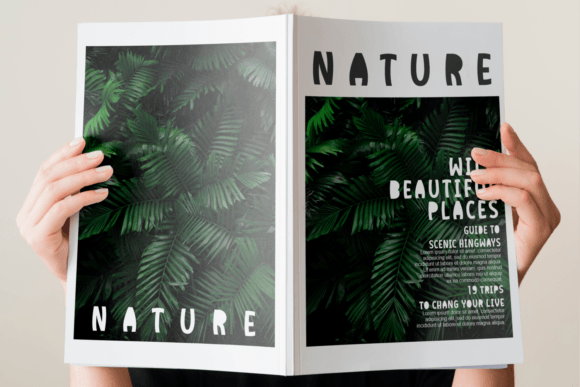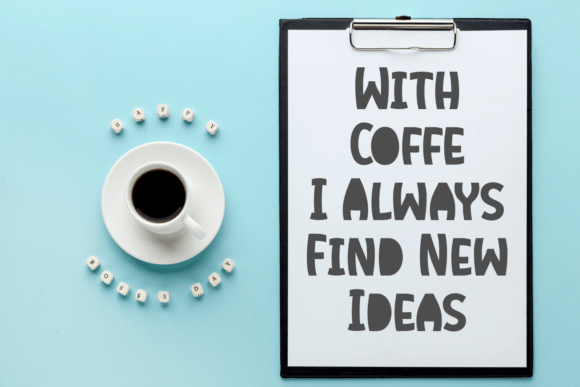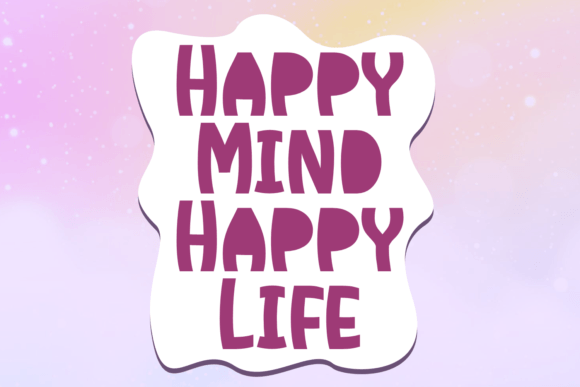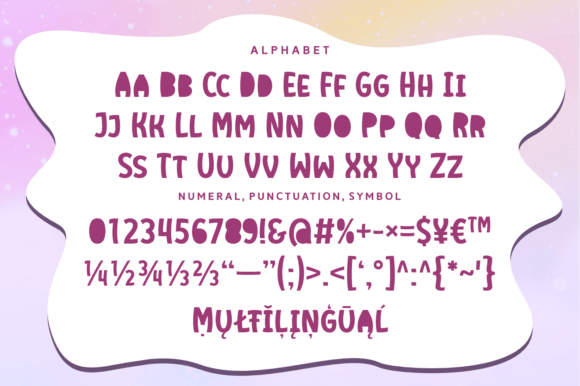
Introducing Common Font: The Uncommon Choice for Creative Designs
Are you tired of using the same old fonts in your designs? Look no further than Common Font, a fabulous display font that’s sure to take your creations to the next level. With its unique, dancing-like characters, Common Font is the perfect choice for designers and crafters looking to add a touch of personality to their work.
The Story Behind Common Font
Common Font is a creative typeface designed to help you stand out from the crowd. Its not-so-common look is perfect for making a statement, whether you’re designing a poster, magazine cover, website, logo, or any other type of visual project. With Common Font, you can add a dash of whimsy and flair to your designs, making them truly unforgettable.
What Makes Common Font So Special?
So, what sets Common Font apart from other fonts out there? Here are just a few of its standout features:
- Unique Character Design: Each character in Common Font has been carefully crafted to have a dancing-like quality, giving your designs a sense of movement and energy.
- High Versatility: Whether you’re designing a bold poster or a sleek website, Common Font is versatile enough to work in a wide range of applications.
- Easy to Read: Despite its creative design, Common Font is still easy to read, making it perfect for use in body text as well as headlines.
How to Use Common Font in Your Designs
Common Font is perfect for a wide range of design projects, including:
- Posters: Add a bold, eye-catching headline to your poster with Common Font.
- Magazine Covers: Use Common Font to create a striking title that will grab readers’ attention.
- Websites: Add a touch of personality to your website’s design with Common Font.
- Logos: Create a memorable logo that will set your brand apart with Common Font.
- Crafting Projects: Use Common Font to add a personal touch to your crafting projects, such as handmade cards or scrapbooking pages.
Tips for Getting the Most Out of Common Font
Here are a few tips for using Common Font effectively in your designs:
- Experiment with Different Sizes: Common Font looks great in a variety of sizes, so don’t be afraid to experiment to find the perfect fit for your design.
- Play with Color: Common Font looks great in a wide range of colors, so try out different hues to find the one that works best for your design.
- Pair it with Other Fonts: Common Font pairs well with a variety of other fonts, so try combining it with a simpler font for body text.
Key Features of Common Font
| Font Style | Display Font |
| Character Design | Dancing-like characters |
| Versatility | Highly versatile, suitable for a wide range of design projects |
| Readability | Easy to read, even at smaller sizes |